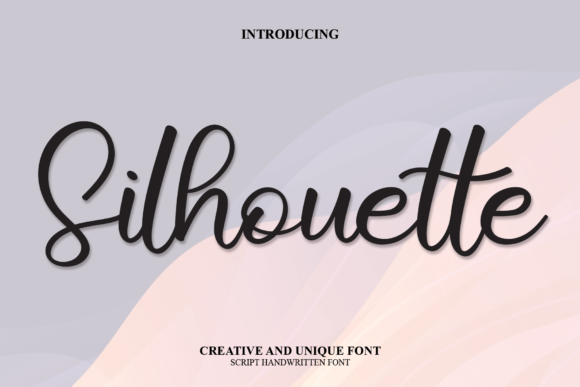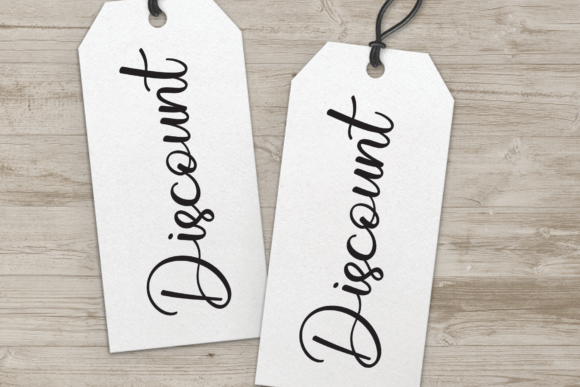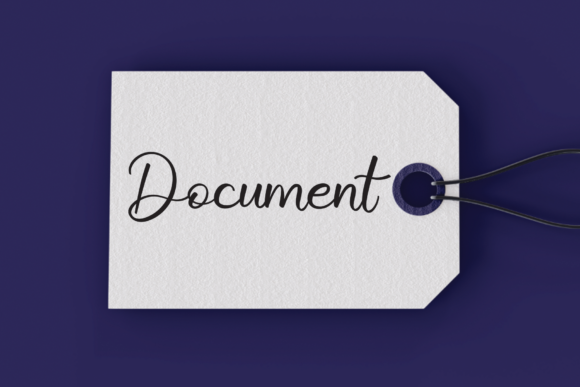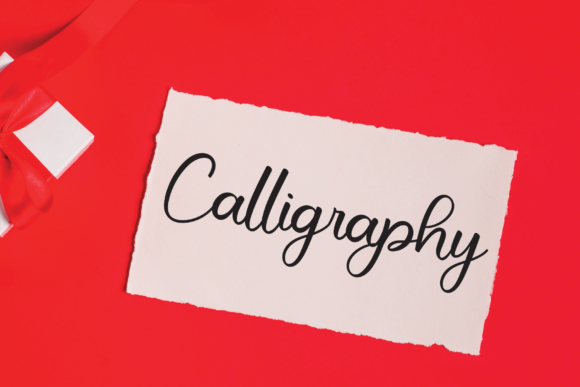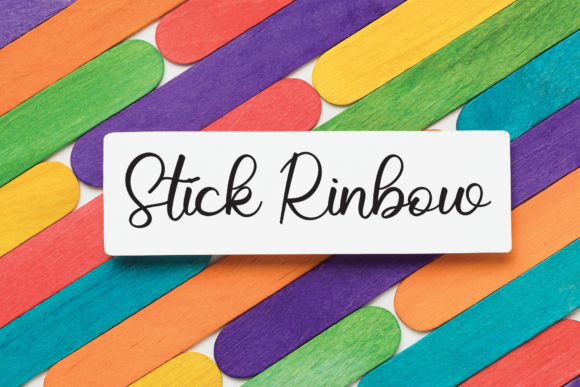
Silhouette Font
Introducing a captivating script font that seamlessly blends sweetness, romance, and beauty. Each letter is adorned with graceful curves, adding a touch of elegance to every stroke. This font is not only visually enchanting but also comes equipped with PUA coding, providing users with convenient access to a plethora of glyphs and swashes.
The inherent sweetness of this script font makes it a perfect choice for projects that demand a romantic and beautiful aesthetic. Whether you’re designing wedding invitations, love notes, or any other sentimental pieces, the font’s delicate curves enhance the overall charm, creating an atmosphere of timeless romance.
One noteworthy feature is the inclusion of PUA coding, ensuring effortless exploration of the font’s diverse elements. This means that users can easily access and integrate the various glyphs and sweeps, allowing for a personalized and creative touch in their designs. The user-friendly nature of PUA coding makes it accessible to both seasoned designers and those new to the world of typography.
The beautiful curves in each letter contribute to the font’s overall allure, making it a versatile choice for a range of creative endeavors. Whether applied to product packaging, branding, or social media graphics, the script’s fluidity imparts a sense of sophistication and beauty to the text.
This font’s romantic undertones make it an ideal choice for expressing emotions and creating visually stunning pieces that resonate with heartfelt sentiments. The combination of sweetness, romance, and beauty within this script font ensures that it not only meets but exceeds the expectations of designers seeking a font that evokes a sense of timeless allure.
In summary, this script font is more than just a typographic tool; it’s a gateway to infusing your designs with sweetness, romance, and timeless beauty. With beautiful curves in each letter and PUA coding for easy access to an array of glyphs, this font invites you to explore and create, adding a touch of enchantment to every project.